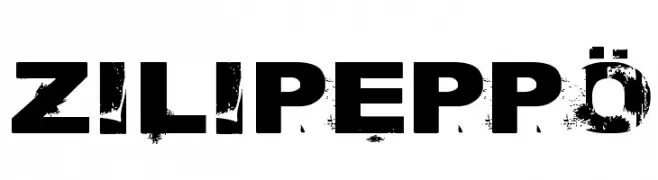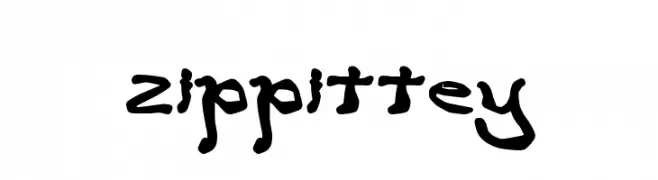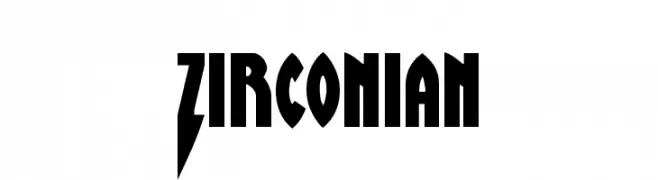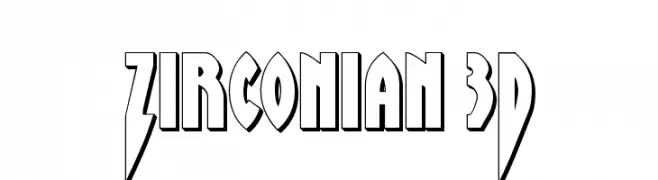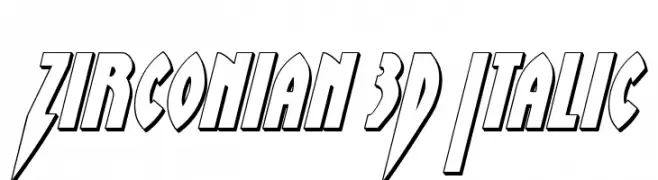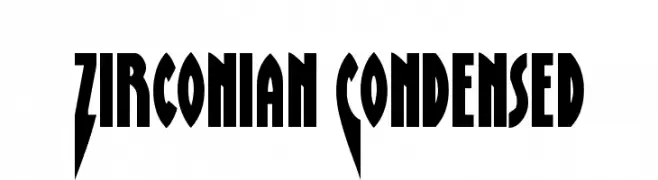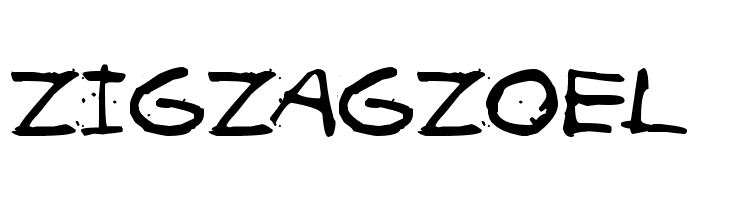
A bold, hand-drawn font with an expressive and artistic style.
A modern, angular font with a futuristic and digital style.
A bold, distressed font with a grunge effect, perfect for impactful designs.
A jagged, edgy font with sharp, irregular edges for a dynamic look.
A playful, hand-drawn font with a whimsical and dynamic style.
A whimsical, hand-drawn font with irregular, organic shapes and dynamic strokes.
A bold, geometric font with a strong visual impact and uniform width.
A bold, geometric 3D font with a futuristic and dynamic style.
A bold, 3D italic font with a futuristic and dynamic style.
A bold, condensed font with a geometric and modern style.